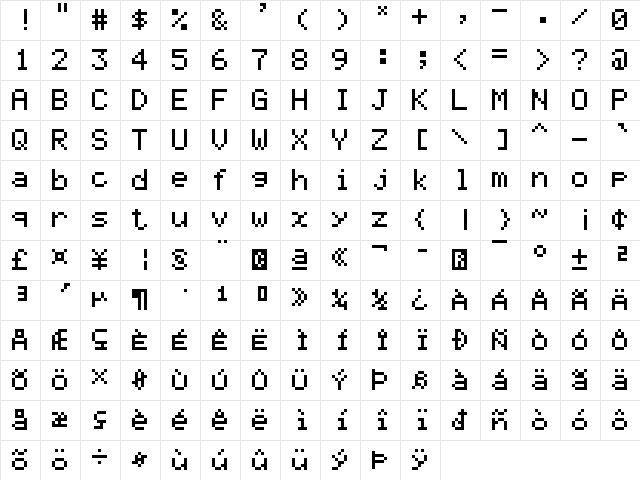
Graph 35+ pix Regular
| Designer | 30100flo |
Design Context for Graph 35+ pix Typeface
Graph 35+ pix takes a measured approach to typography — its balanced proportions and neutral character make it a reliable workhorse for both digital and print work.